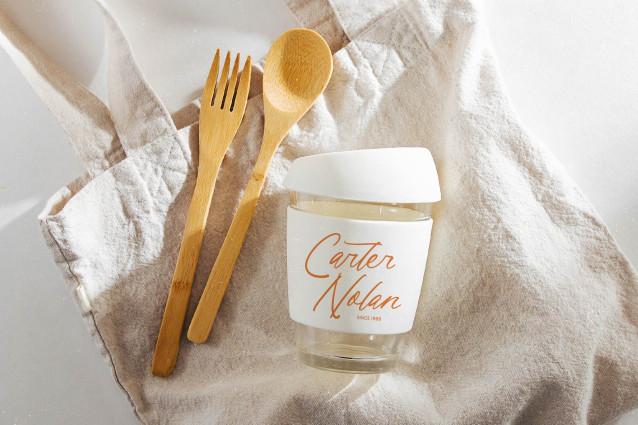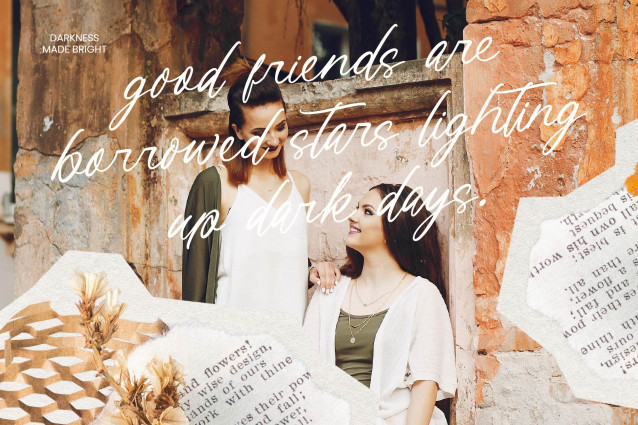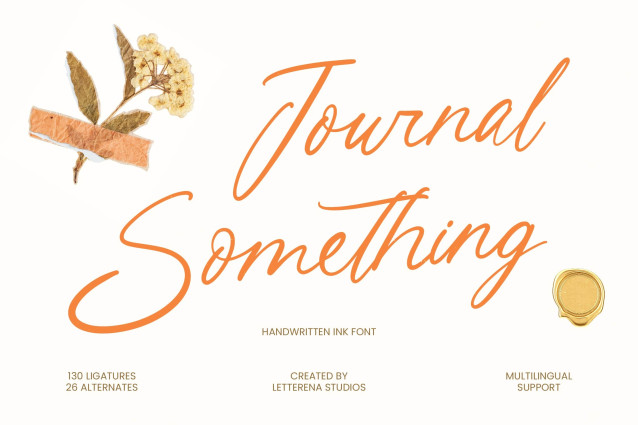
Journal Something Font
Journal Something – Handwritten Ink Font is a masterfully crafted typeface that captures the fluid, rhythmic motion of natural ink on paper. Created by Letterena Studios, it offers an authentic aesthetic that bridges the gap between traditional penmanship and modern digital design, providing a visually stunning foundation for any high-end creative project.
Precision and beauty converge to define your unique brand identity with unparalleled grace. This typeface is the perfect solution for luxury branding, artisanal packaging, and sophisticated editorial layouts where a human touch is essential. Whether you are designing exquisite wedding invitations or upscale social media content, Journal Something – Handwritten Ink Font ensures your message is delivered with a sense of prestige and intimacy.